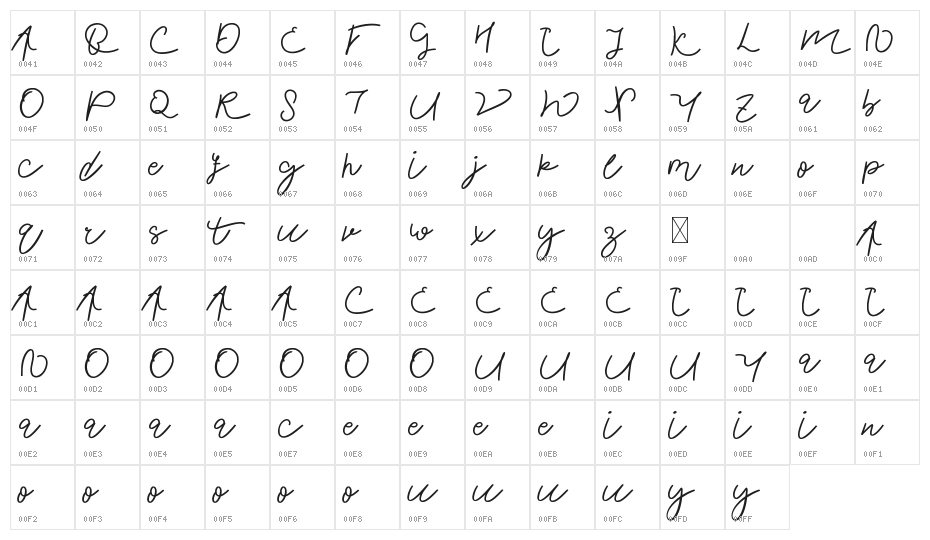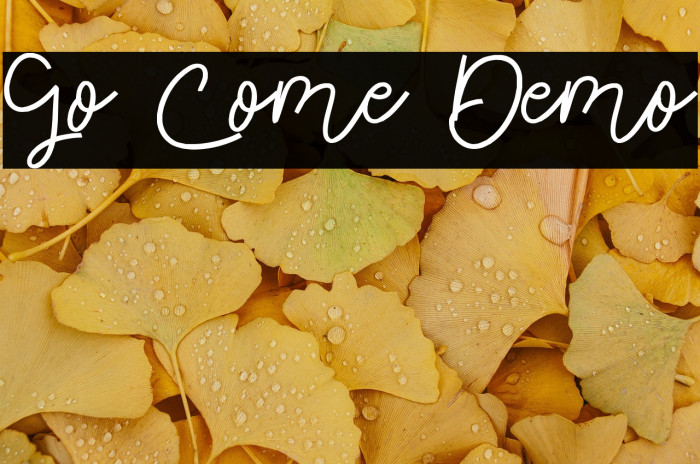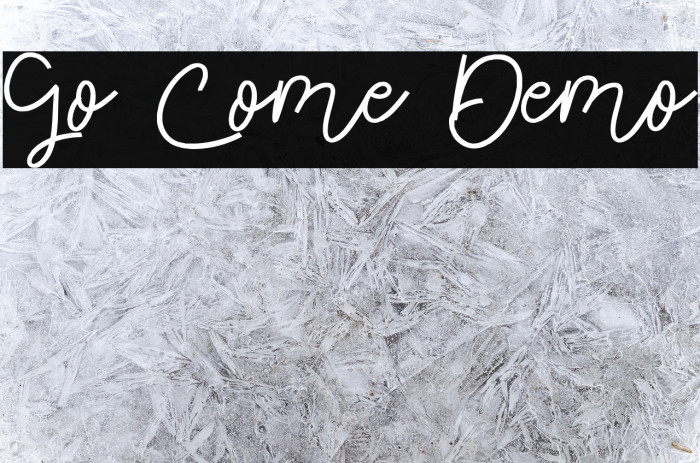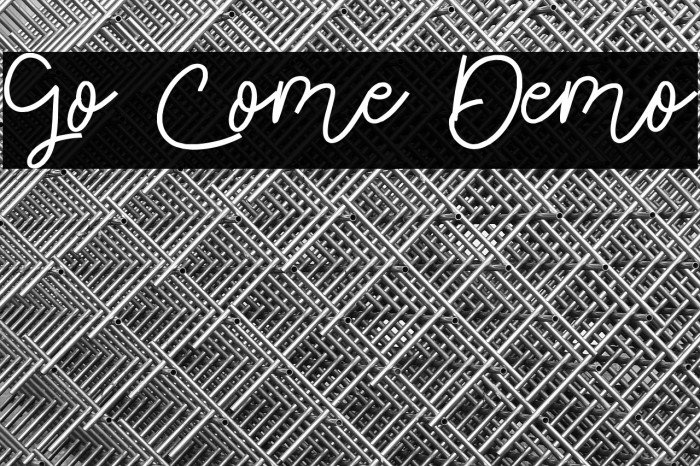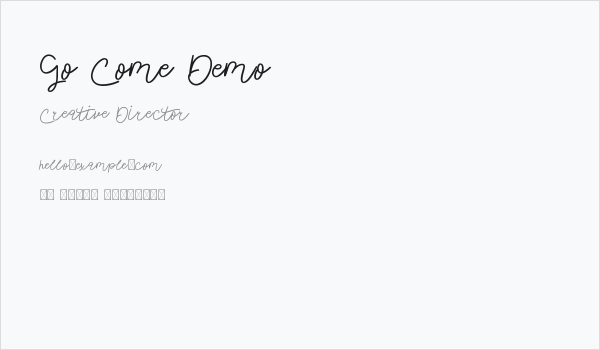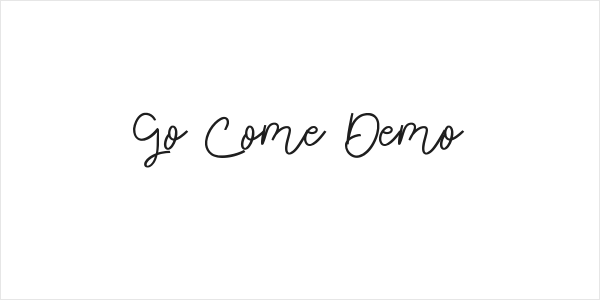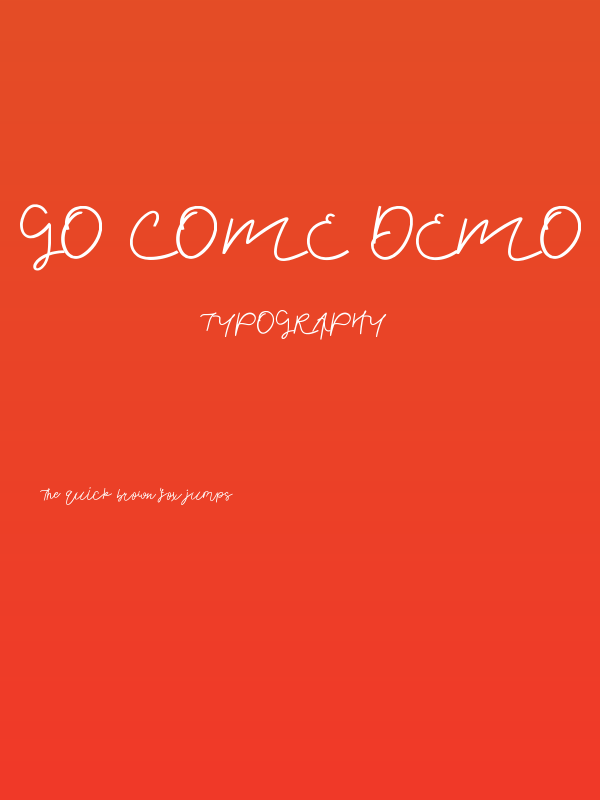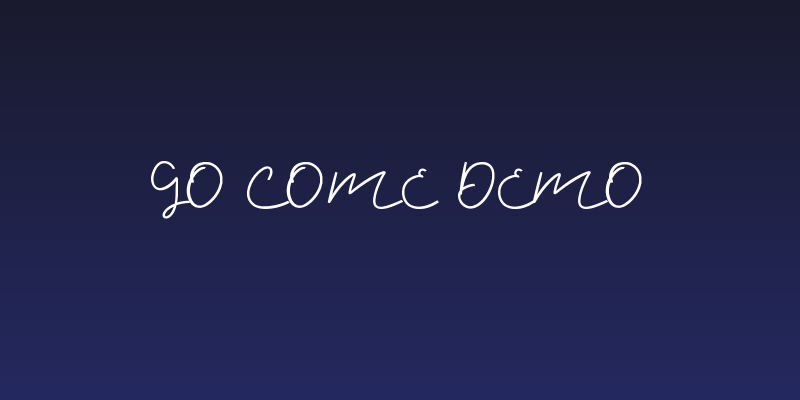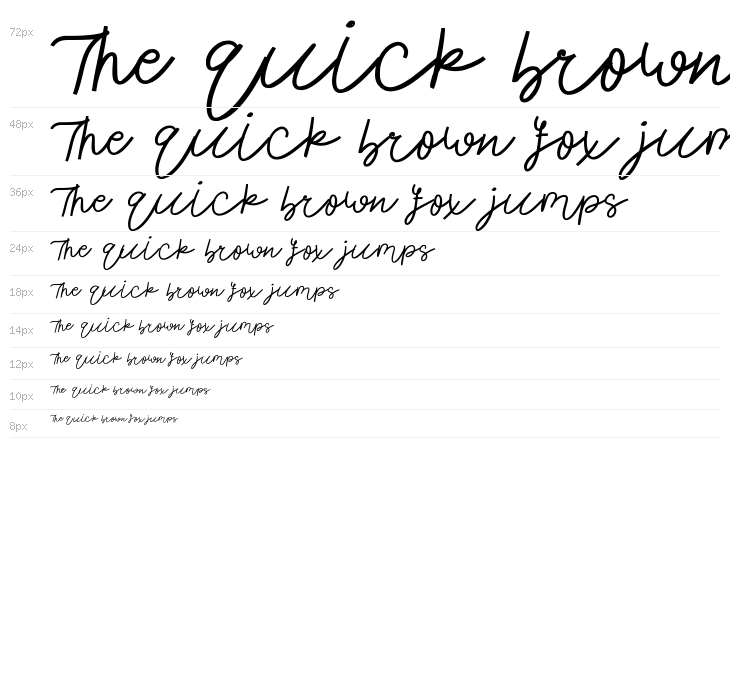
Go Come Demo Font
Go Come Demo Description
This font features a fluid, cursive style that mimics the elegance of handwritten script. The letters are connected, creating a seamless flow that enhances its readability while maintaining a sophisticated appearance. The strokes are smooth and consistent, with a slight variation in thickness that adds a touch of dynamism without compromising clarity. This font exudes a sense of personal touch and warmth, making it ideal for projects that require a more intimate or artistic feel. The uppercase and lowercase letters are distinct yet harmonious, ensuring versatility in various design contexts. The overall aesthetic is both modern and timeless, suitable for a wide range of applications.
| Use Case | Logos, Invitations, Artistic designs |
| Proposed Projects | Ideal for wedding invitations, greeting cards, personal branding, and artistic projects. |